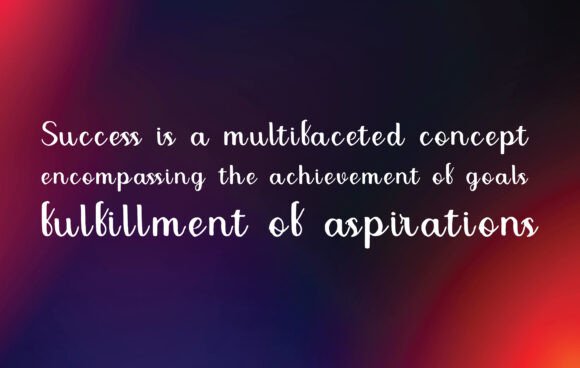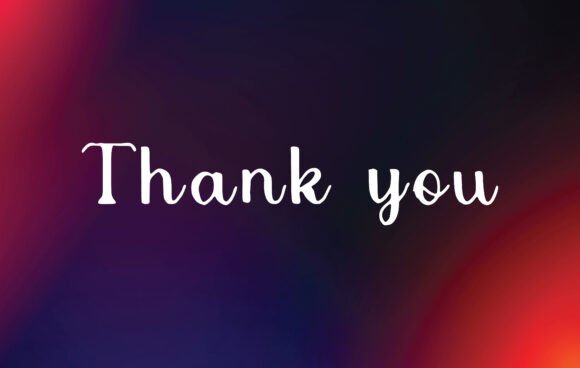
Introduction to Kashton Font
Kashton is a lovely and beautiful handwritten font.
Key Features of Kashton Font
Why Choose Kashton Font?
Kashton Font offers exceptional quality and versatility, making it a valuable addition to your design toolkit. Whether you’re creating for personal projects or commercial use, Kashton Font delivers professional results.